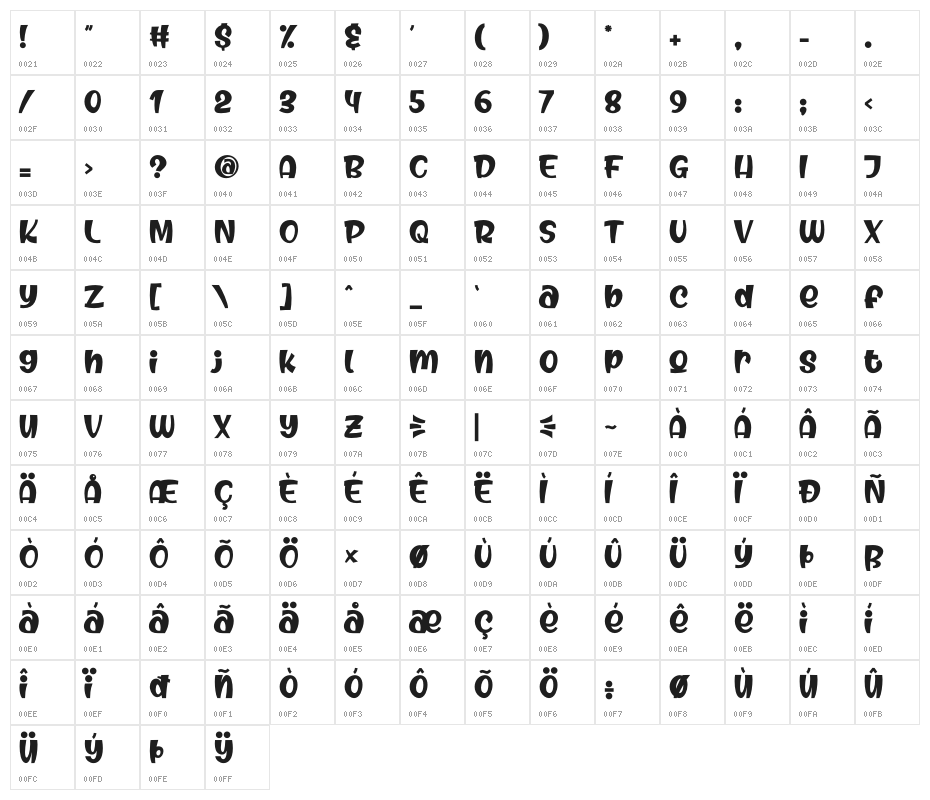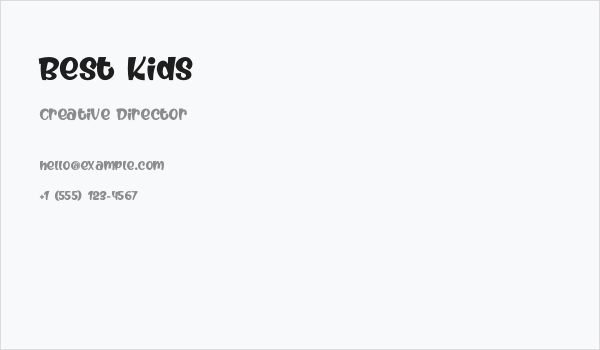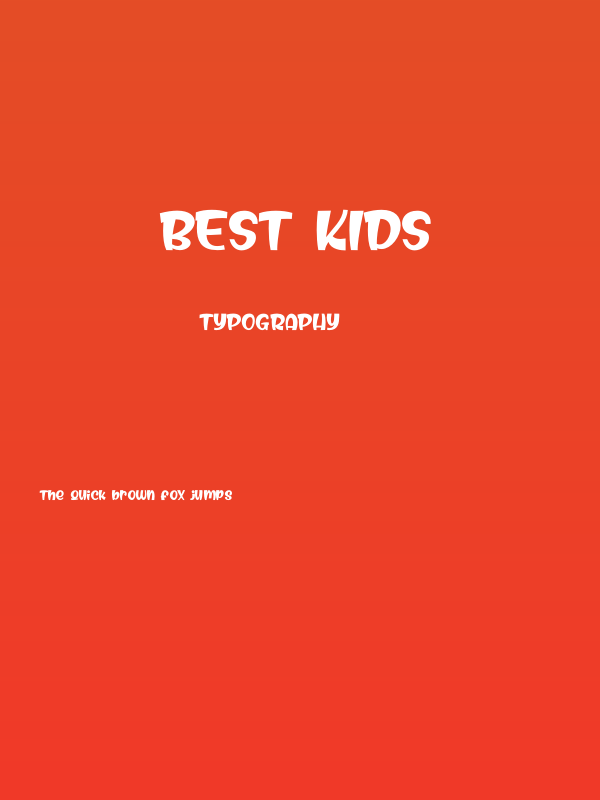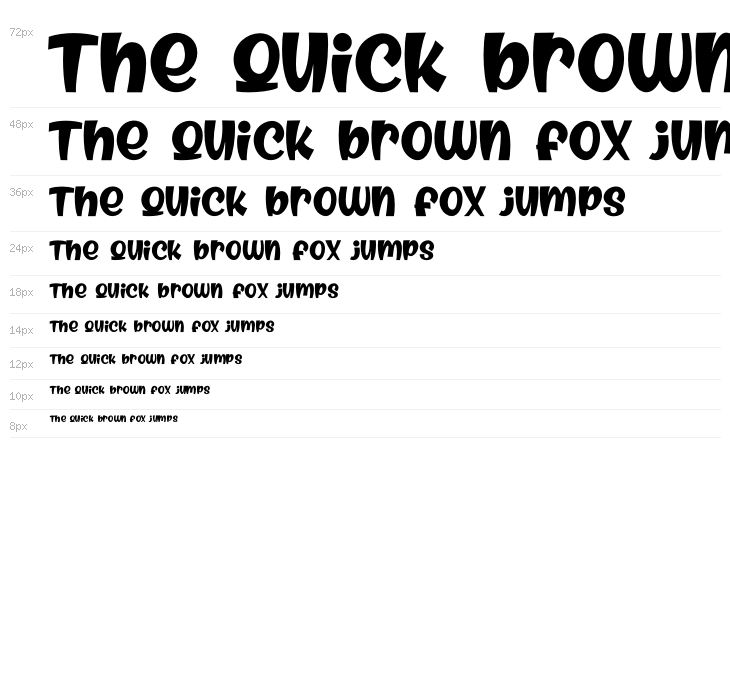
Best Kids Font
Best Kids Description
This playful and bold font features a whimsical, rounded style with a strong presence. The characters are thick and slightly irregular, giving them a hand-drawn appearance that is both friendly and approachable. The uppercase and lowercase letters maintain a consistent style, with exaggerated curves and a slight tilt that adds to the font's lively character. The numbers and special characters are equally bold and maintain the same playful aesthetic, making the font versatile for various applications. Its unique style makes it suitable for children's materials, playful branding, and any project that requires a fun and engaging typeface.
Overall StylePlayful, Whimsical
Proposed ProjectsIdeal for children's books, playful branding, posters, and educational materials.